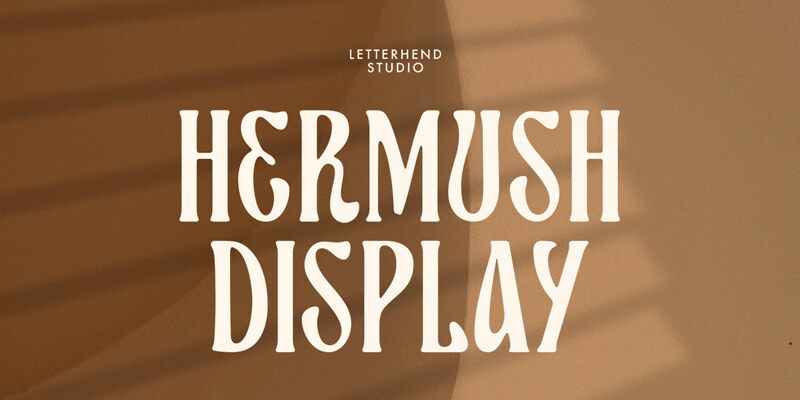
HermushDemo
Hermush, the vintage-inspired display font designed by Letterhend Studio, is perfect for adding a touch of nostalgia to your creative projects. Its semi-light weight and extra-condensed width make it ideal for titles, headlines, and other attention-grabbing text. Whether you're designing a logo for a retro-themed brand or creating posters for an old-school concert, Hermush will help you achieve that vintage aesthetic with ease. Its unique style is suitable for a variety of projects such as book covers, movie posters, packaging design and more. Bring your designs to life with Hermush – the perfect typeface to stand out from the crowd!